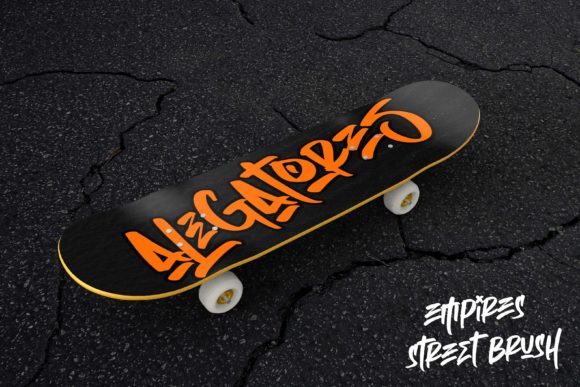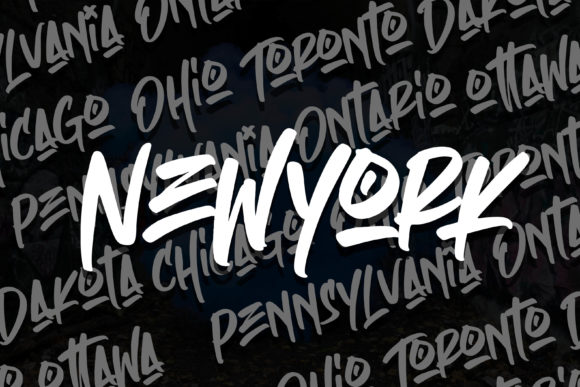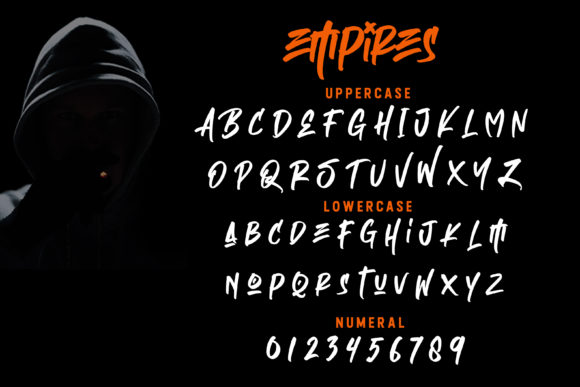
Introduction to Empires Font
Have you ever been working on a creative project, and the perfect font just slips right through your fingers? That’s what happened to many designers when they discovered the Empires Font – a supercharged, street-wise brush font that gives their designs an instant energy boost. With its bold and playful style, Empires Font is a game-changer for any project that needs a typographic turbo-boost.
Whether you’re designing a logo, apparel, or product packaging, Empires Font is a valuable resource that can elevate your design to the next level. And the best part? It’s available for free download, making it a must-have for any designer looking to add some high-quality flair to their projects.
Honest Review: Empires Font
I recently came across the Empires Font, and I must say, it’s been a game-changer for my creative projects. As a designer, I’m always on the lookout for high-quality design resources that can elevate my work. Empires Font definitely delivers.
- What works well: ✨ The font’s modern and sleek design makes it perfect for creating a professional and sophisticated look. It’s also incredibly versatile and can be used for a wide range of creative projects, from logos to infographics.
However, I did encounter a few limitations: ⚠️ The transparent background option can sometimes cause issues with text clarity, especially when used on dark backgrounds.
Overall, I’m really impressed with the Empires Font. It’s a solid design resource that can add a touch of sophistication to any creative project. The high-quality design and transparent background make it a versatile choice for designers.
While it’s not perfect, the Empires Font is definitely worth considering for your next design project. Give it a try and see how it can elevate your work!
For the most out of Empires Font, use it for headings, titles, and short paragraphs. It’s ideal for:
- Infographics and presentations
- Web design and branding